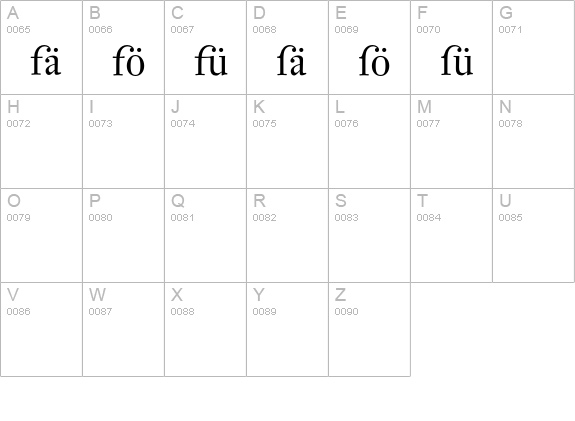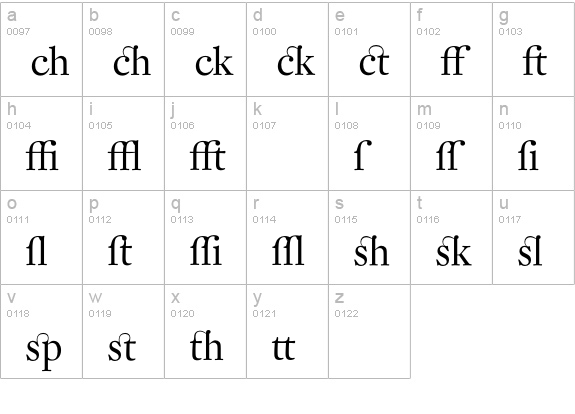
DTL Fleischmann D Regular Alt is the standard, neutral variant in the DTL typeface family \xE2\x80\x94 well suited to general body text, paragraphs, and standard typographic work.
The DTL Fleischmann D Regular Alt font is a timeless and elegant typeface that exudes sophistication and clarity. With its clean lines and classic design, this font is perfect for various design projects, from branding to editorial layouts. Its versatility makes it a go-to choice for designers looking for a font that combines tradition with modernity. What sets the DTL Fleischmann D Regular Alt font apart is its unique blend of traditional serif elements with a contemporary twist, making it stand out in a sea of typefaces. Whether used for body text or headlines, this font maintains legibility while adding a touch of character to any project. Best of all, the DTL Fleischmann D Regular Alt font is available for free download at FontsMarket.com. This means you can access this high-quality font without any cost, making it an excellent choice for designers on a budget or those looking to experiment with a new typeface. Don't miss out on the opportunity to enhance your designs with this beautifully crafted font that combines elegance and functionality seamlessly.